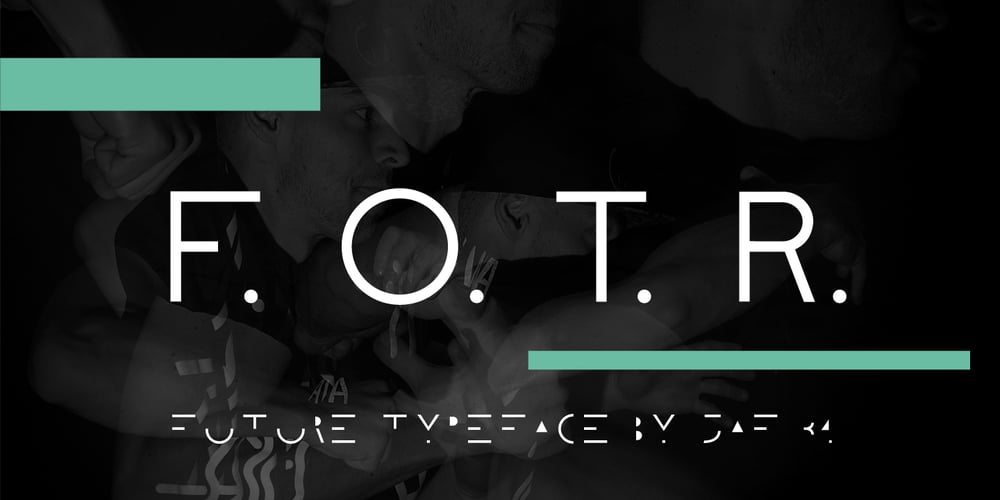
F. O. T. R.
F. O. T. R. font
F. O. T. R. Font Family was designed by JAF 34 and published by JAF 34. F. O. T. R. contains 3 styles and family package options. F. O. T. R. is experimental sans serif display font. Space travelling is near so I decided to bring you a brand new typeface based on insight into the future. Clean shapes, a lot of atypical alternates and the futuristic appearance. F. O. T. R. typeface is conceptually connected with a chronophotography project FUTURE OF THE RHYTHM.